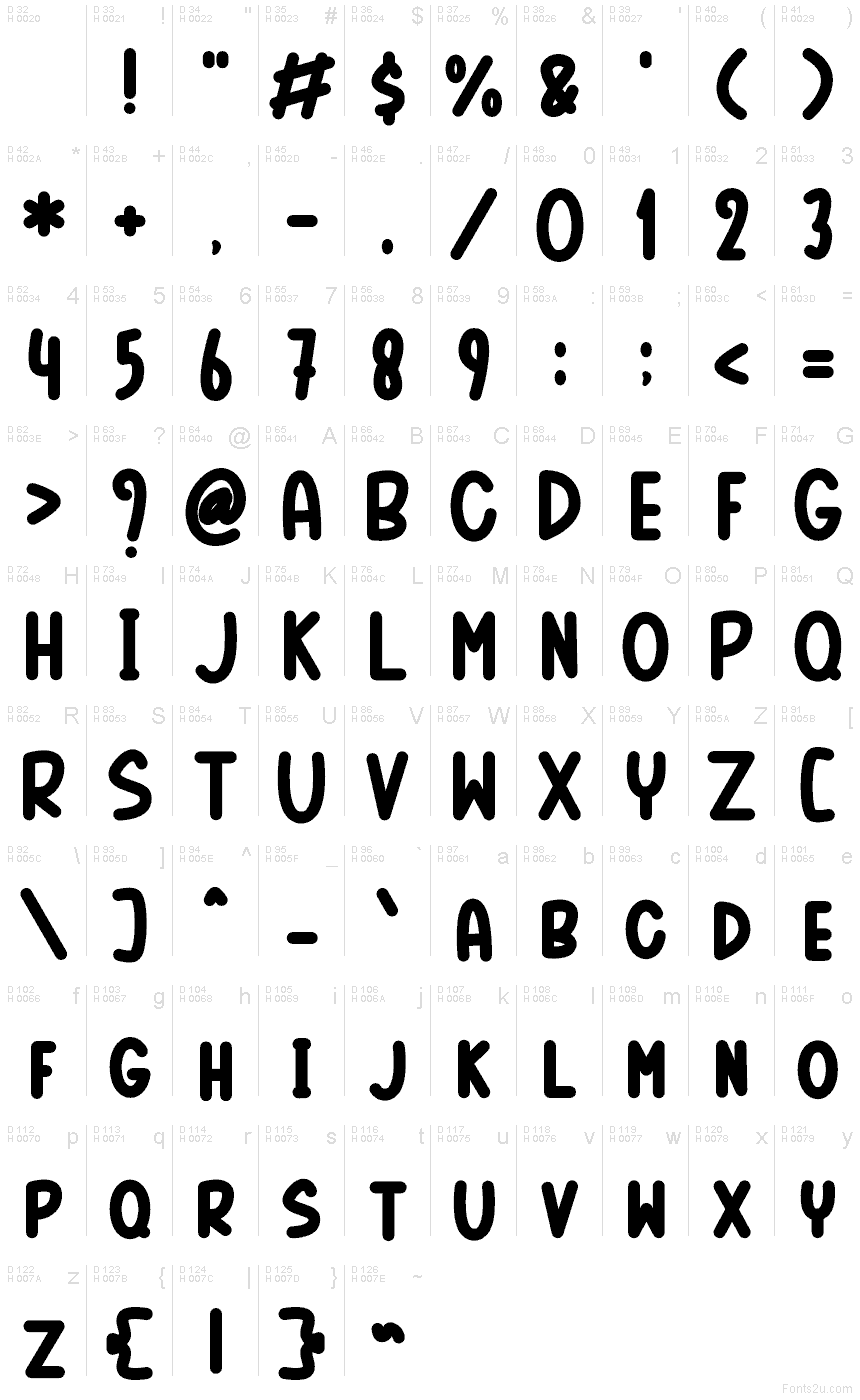
Amelia Heart
Amelia Heart font is a whimsical handwritten font designed by Fntype Std. With its rounded, retro-inspired characters, it exudes a friendly and approachable vibe perfect for any playful design project. If you’ve been looking to break away from the regular style of traditional fonts, this delightful typeface might be what you need.
Don’t miss out on making your postcards, invitations, product labels and packaging look their best. Its artistic style makes Amelia Heart more suitable for logos and branding as well as poster designing along with website headers. Free to download and use!